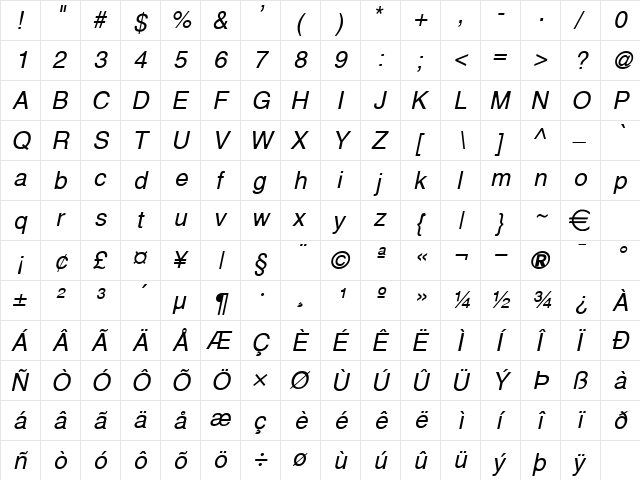
Alps Italic
Design Context for Alps Typeface
Alps is a composed and adaptable typeface that performs quietly and consistently across a wide range of design contexts. The dynamic lean of this cut emphasises speed and emphasis in any layout.
Pro Tip: Use Alps for emphasis, pull quotes, and subheadings where its slanted energy can add rhythm to the layout.